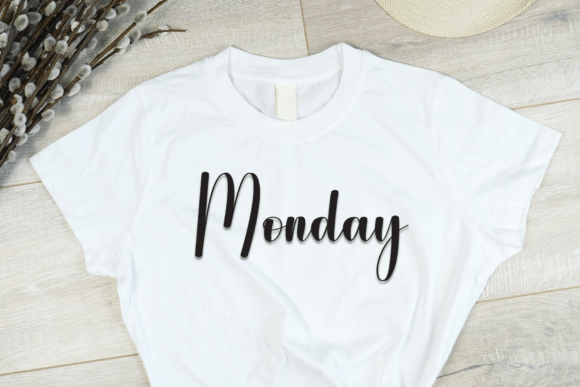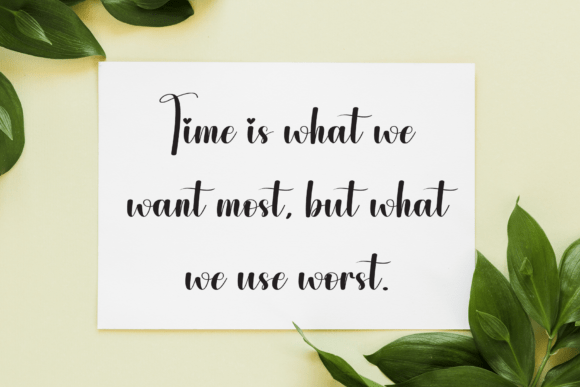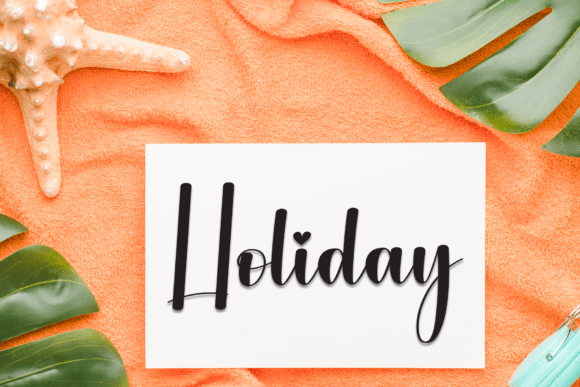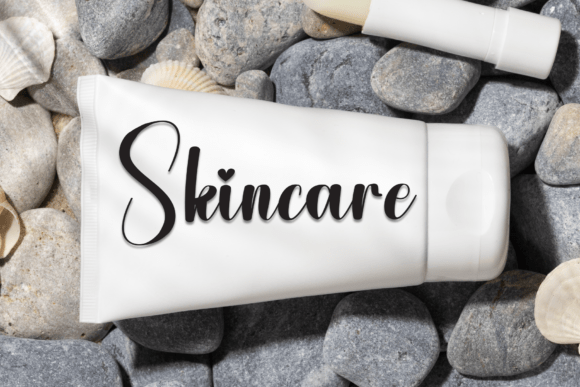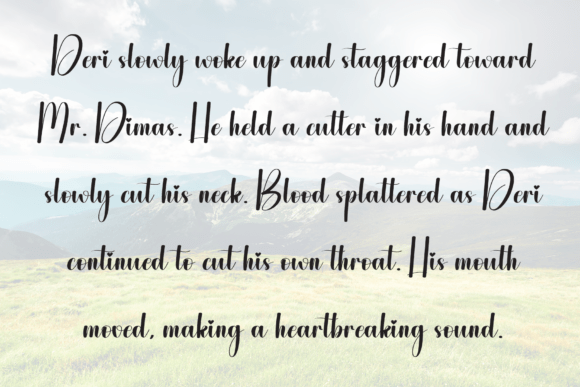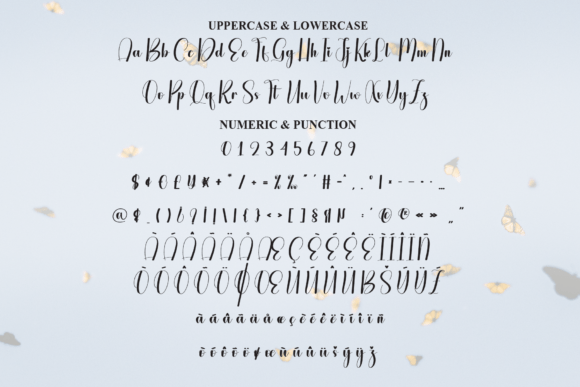
Introducing Butterflies Font: Elevate Your Designs with Elegance and Creativity
In the world of typography, few fonts manage to capture the essence of both modern elegance and artistic flair as effectively as Butterflies Font. This stylish script font is a masterpiece of contemporary design, boasting flowing strokes, graceful curves, and expressive letterforms that bring a touch of sophistication to any project. Whether you’re a designer looking to elevate your branding, a crafter seeking the perfect font for your handmade goods, or a social media enthusiast aiming to make your graphics stand out, Butterflies Font is an exceptional choice.
The Beauty of Hand-Drawn Calligraphy with a Contemporary Twist
Butterflies Font strikes the perfect balance between traditional calligraphy and modern design. Its flowing strokes and graceful curves evoke the beauty of hand-drawn calligraphy, while its refined details and contemporary flair ensure it remains fresh and relevant. This unique blend makes it an ideal font for a wide range of applications, from logos and invitations to packaging and social media graphics.
Key Features of Butterflies Font
- Flowing Strokes and Graceful Curves: Each letterform in Butterflies Font is carefully crafted to showcase smooth, flowing strokes and elegant curves, adding a natural rhythm to your text.
- Expressive Letterforms: The font features highly expressive letterforms that convey a sense of movement and fluidity, making it perfect for designs that require a dynamic touch.
- Modern Elegance: With its refined details and contemporary design, Butterflies Font brings a level of sophistication and elegance to any project.
- Versatility: This font is incredibly versatile, suitable for a variety of design projects including logos, invitations, packaging, social media graphics, and more.
Applications of Butterflies Font
The versatility of Butterflies Font makes it an excellent choice for numerous design applications. Here are some of the most popular uses:
- Logos: Create a memorable brand logo with Butterflies Font, adding a touch of elegance and sophistication to your brand identity.
- Invitations: Whether it’s a wedding invitation, birthday party, or corporate event, this font adds a touch of class and refinement to your invites.
- Packaging: Elevate your product packaging with Butterflies Font, making your products stand out on store shelves.
- Social Media Graphics: Enhance your social media presence with eye-catching graphics that feature the elegant and modern look of Butterflies Font.
Why Choose Butterflies Font?
Choosing Butterflies Font for your design projects comes with numerous benefits:
- Unique and Memorable: Its distinctive style ensures your designs stand out and are remembered.
- Highly Versatile: Suitable for a wide range of projects, from digital to print.
- Easy to Read: Despite its elegant and flowing design, Butterflies Font remains clear and readable, even at smaller sizes.
- Time-Saving: With its comprehensive set of characters and styles, you can complete your designs quickly and efficiently.
Tips for Using Butterflies Font Effectively
To get the most out of Butterflies Font, consider the following tips:
- Pair with Complementary Fonts: Combine Butterflies Font with simpler fonts to create visual contrast and hierarchy in your designs.
- Experiment with Colors: While the font itself is elegant, experimenting with different colors can enhance its beauty and adapt it to your brand’s aesthetic.
- Adjust Letter Spacing: For a more customized look, adjust the letter spacing to match the natural flow of your text.
- Utilize Swashes and Alternates: If available, use swashes and alternate characters to add more personality and flair to your text.
Butterflies Font is more than just a script font; it’s a design statement that combines modern elegance with artistic flair. Its flowing strokes, graceful curves, and expressive letterforms make it an ideal choice for designers and crafters looking to add a touch of sophistication to their projects. With its versatility and visual charm, Butterflies Font is set to become a staple in your typography collection, empowering you to create stunning designs that leave a lasting impression.